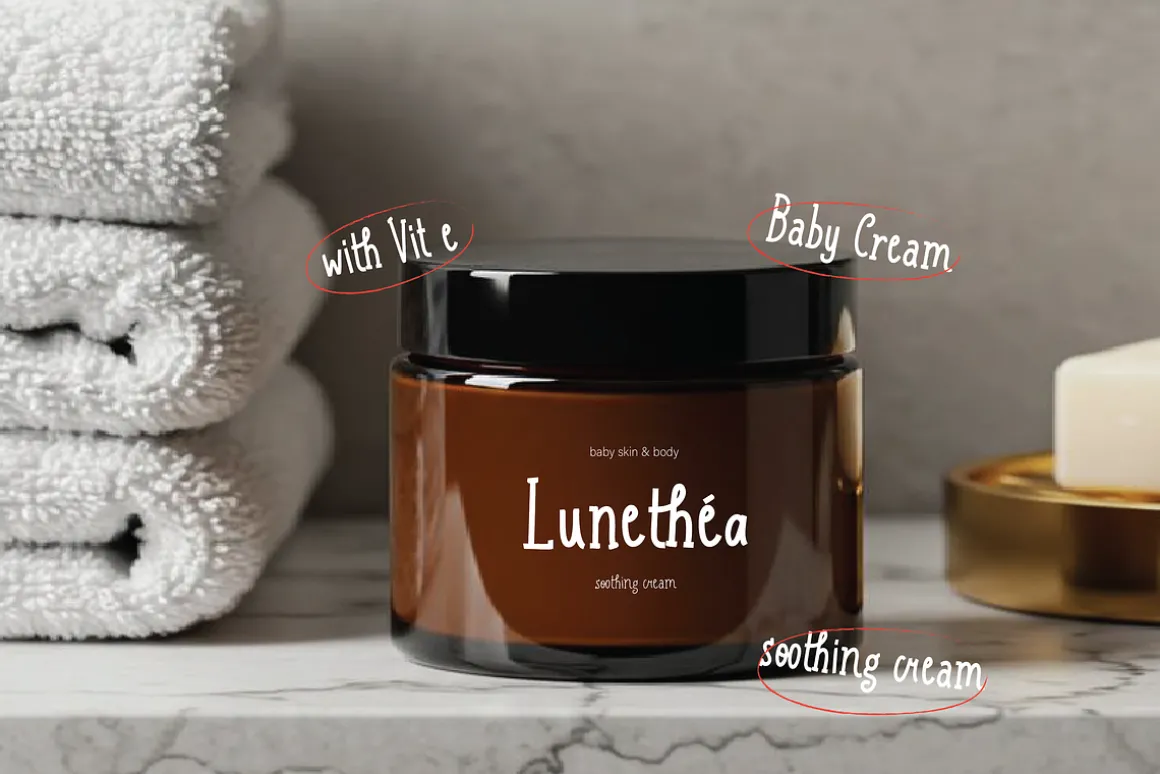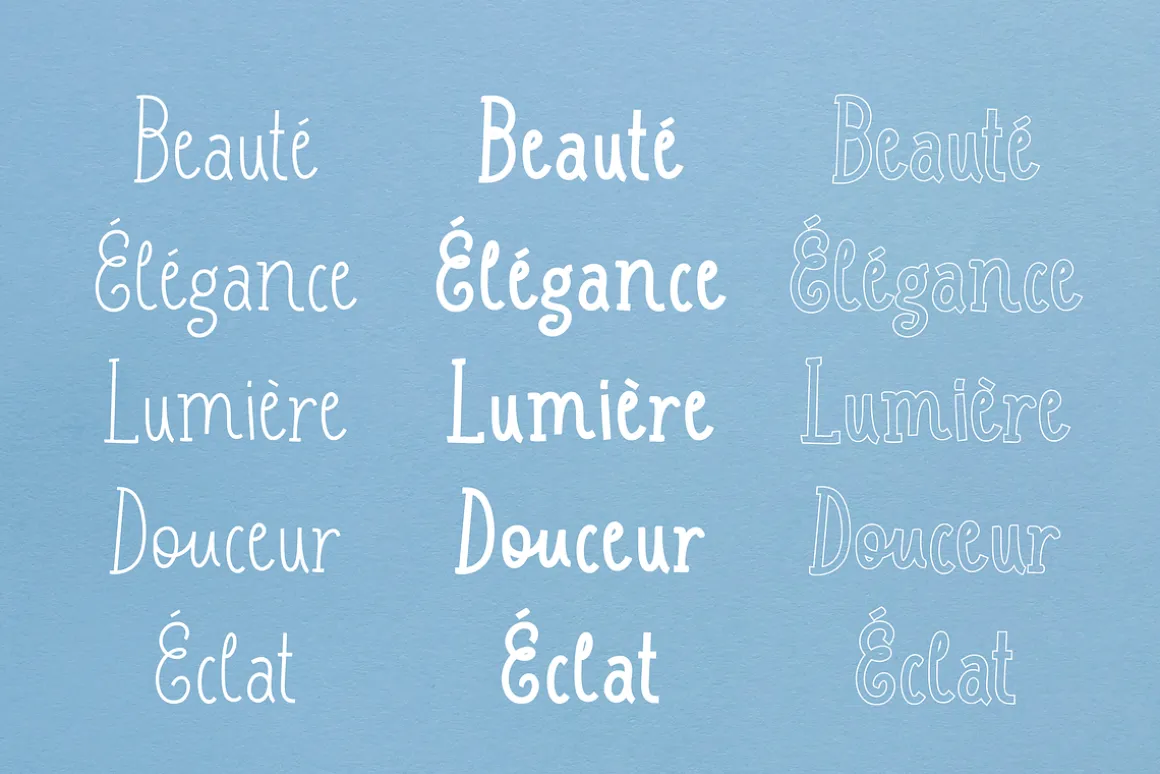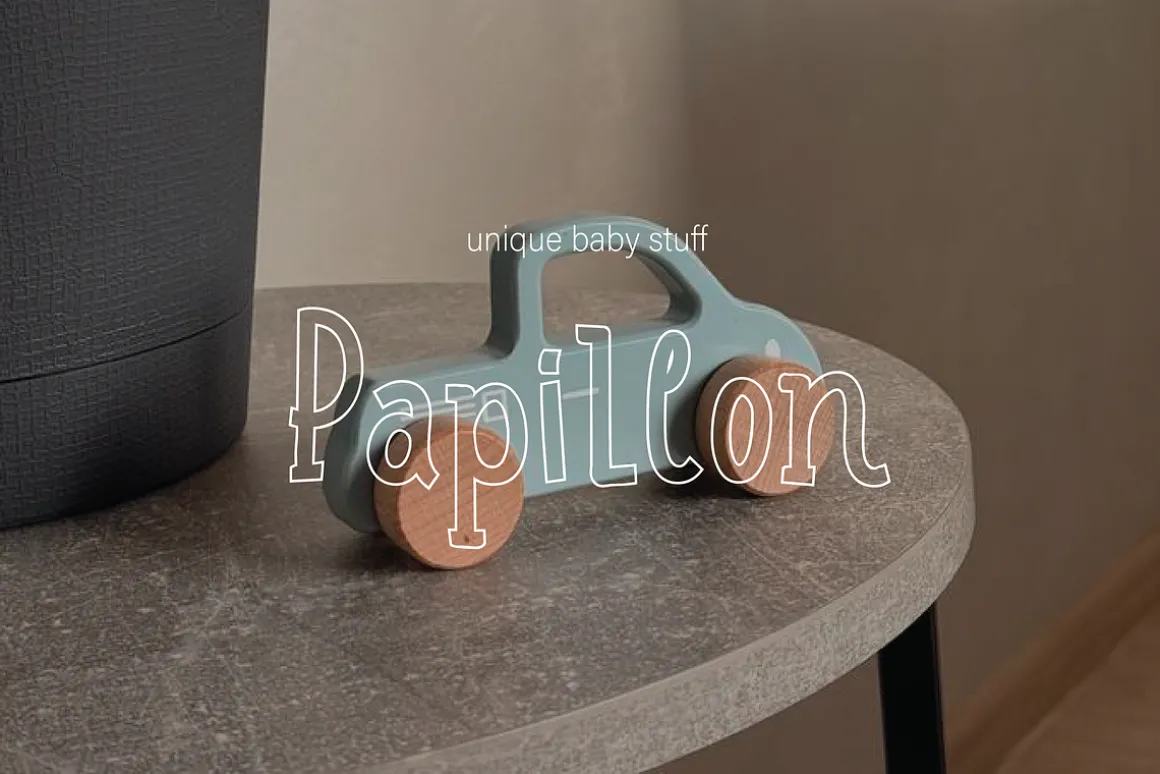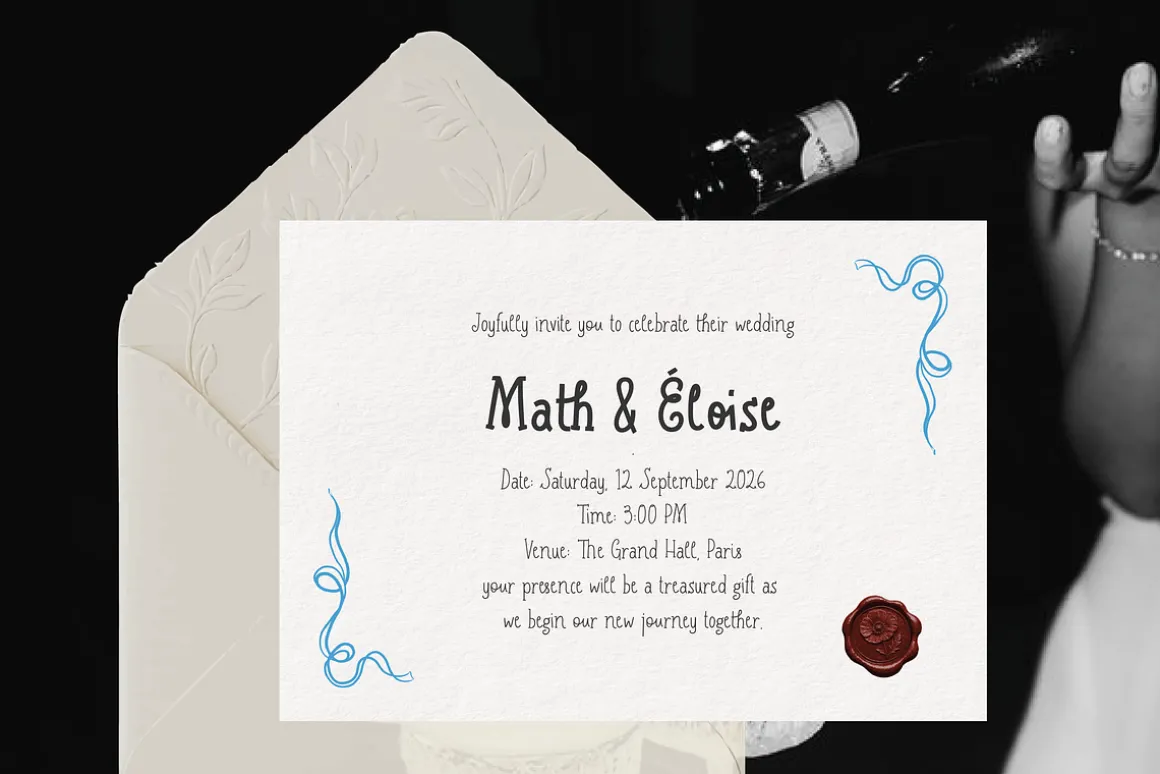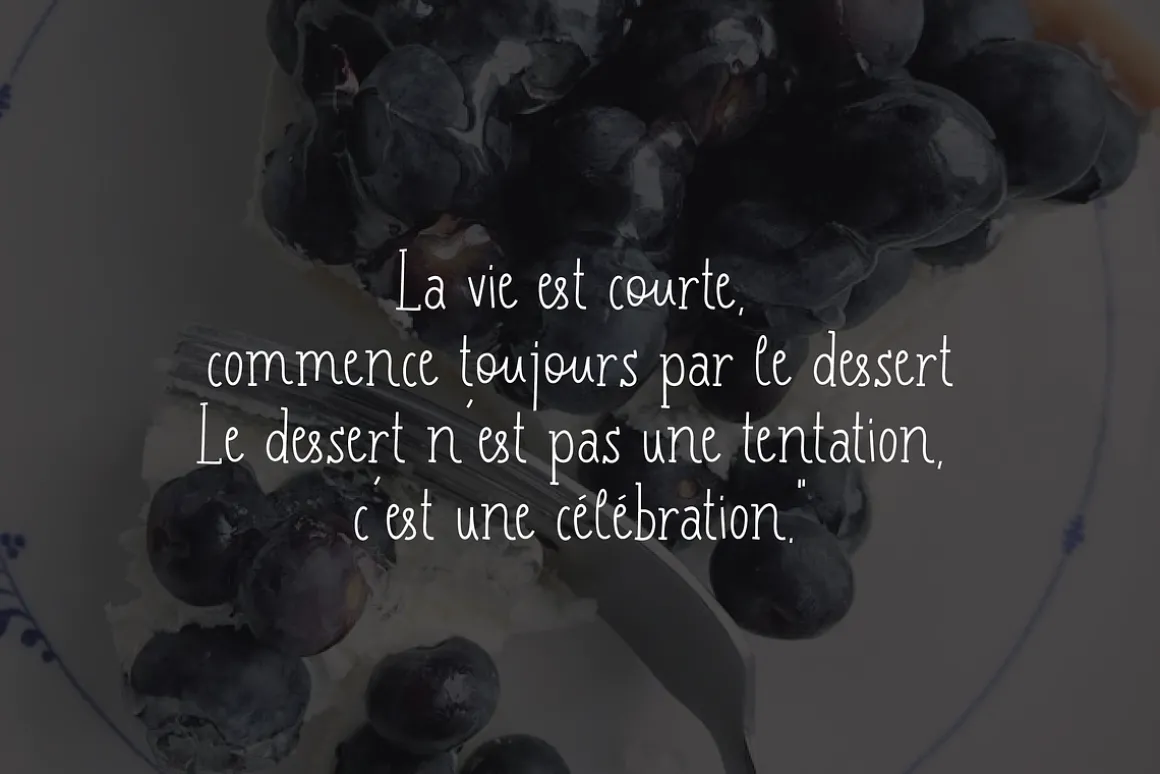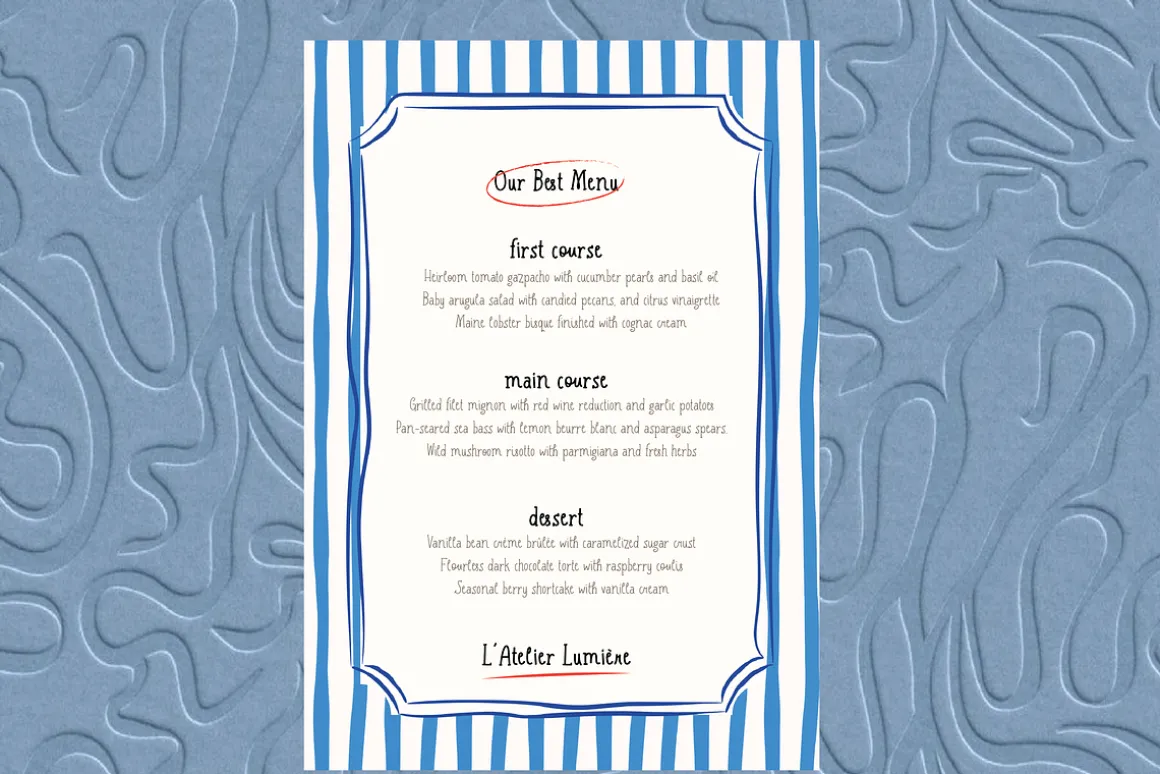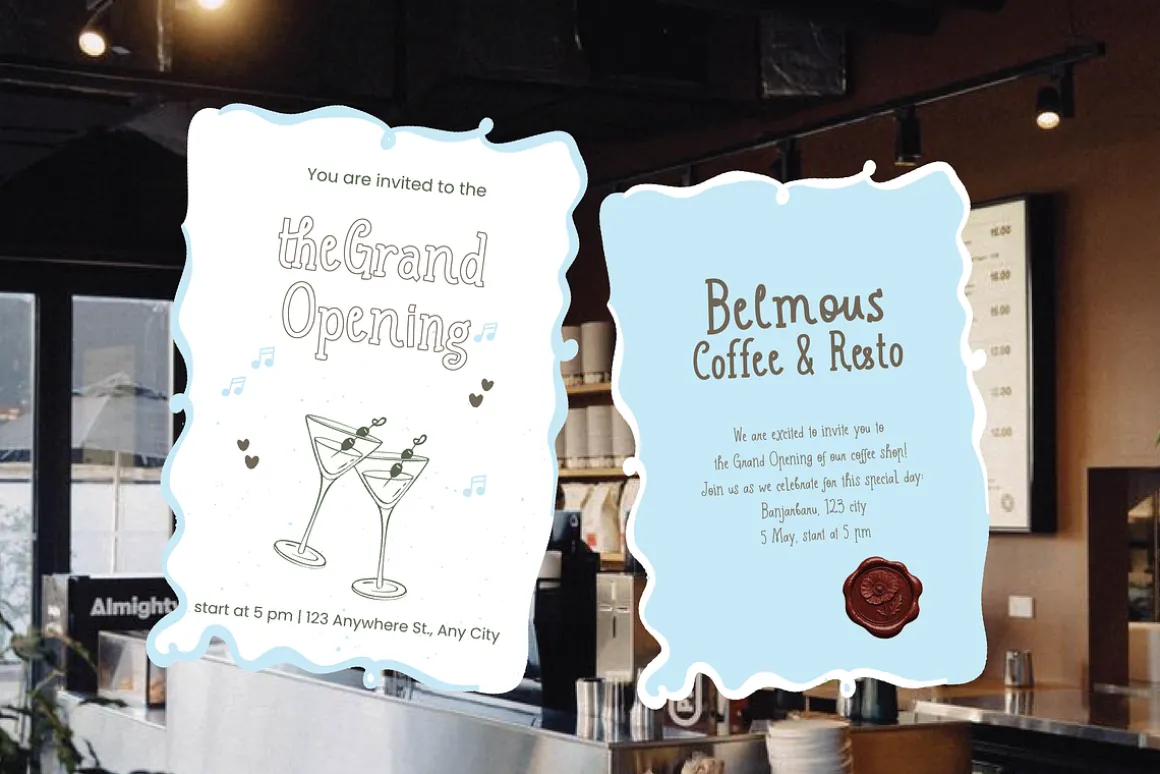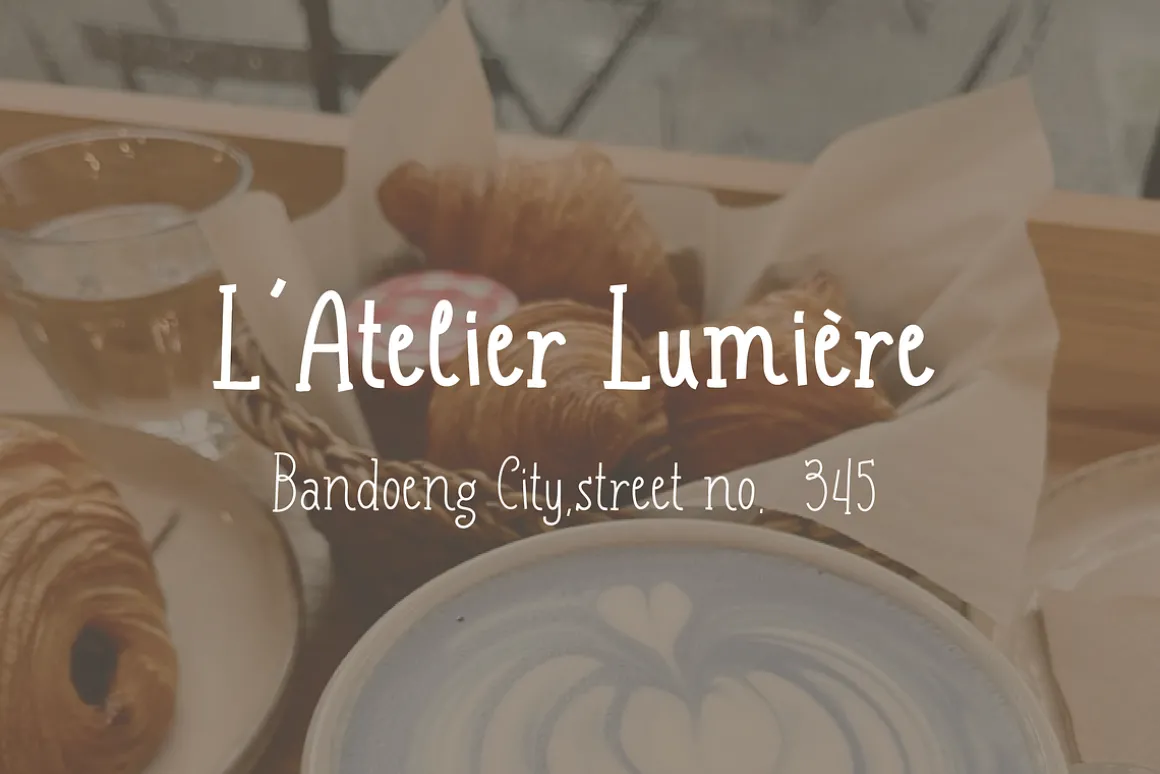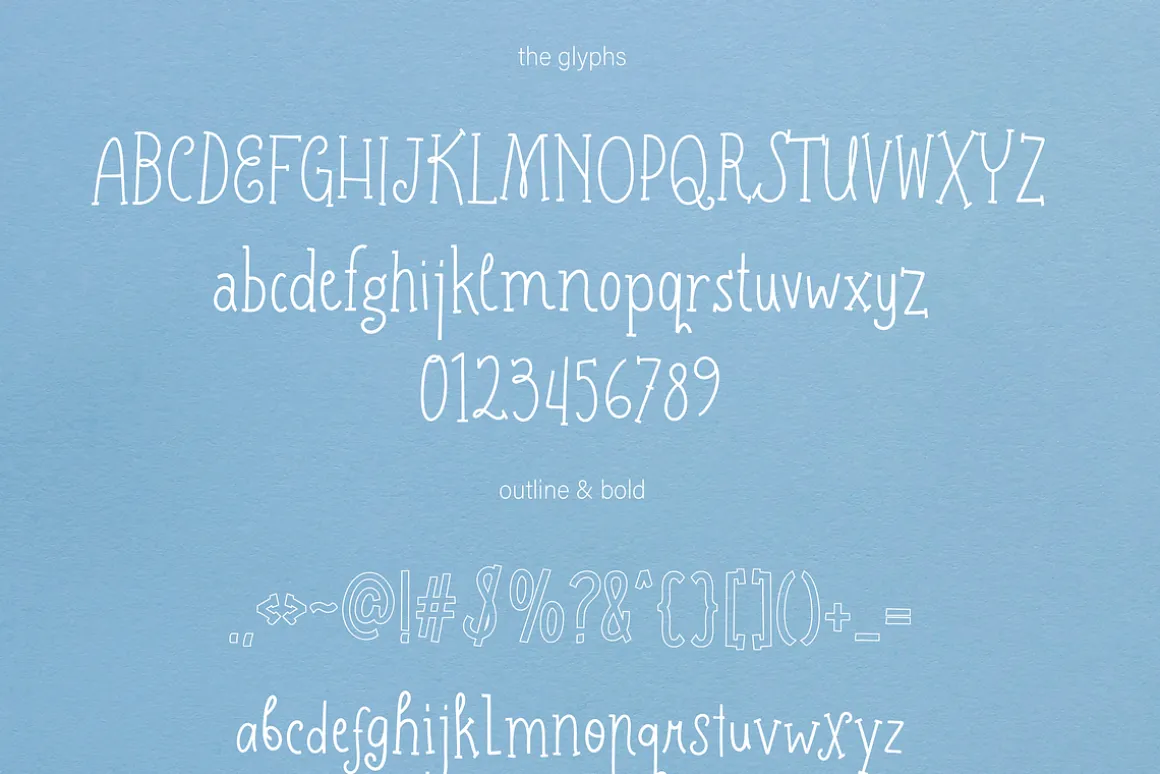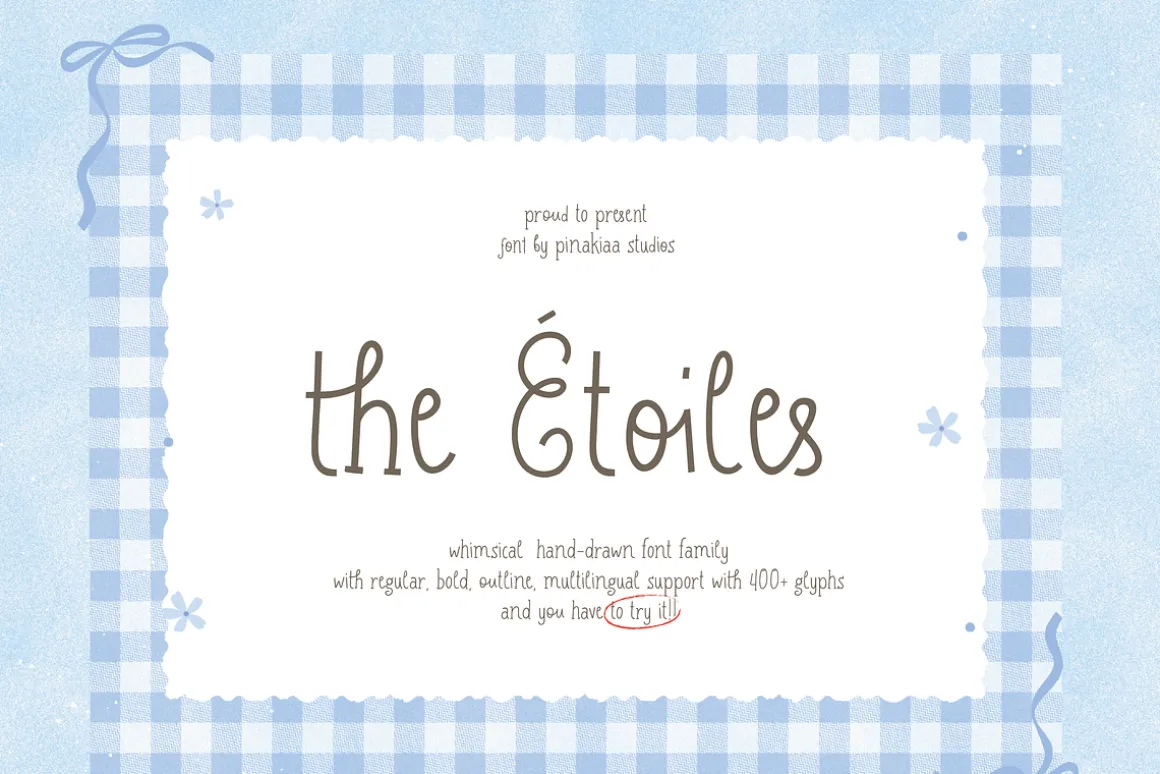
The Etoiles whimsical hand-drawn font family that exudes a soft, sweet, and imaginative feel. With playful yet elegant letterforms, this font evokes a warm and dreamy feel—perfect for branding baby products, cafes and bakeries, wedding invitations, and even beauty packaging.
Available in:Three styles: Regular, Bold and OutlineCharacter Set: Uppercase, lowercase, numerals, symbols, and punctuationMultilingual support with over 400 glyphsAlternate set 01 and cute ligatures